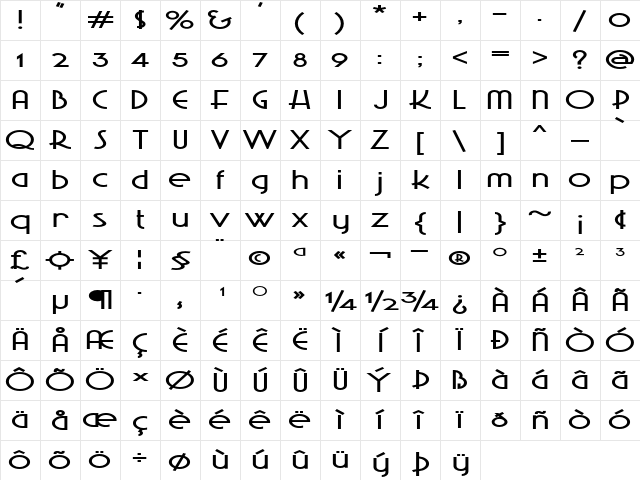
Abalaris Extra-expanded Regular
Style: Extra-expanded Regular
Abalaris Family
Abalaris Extra-expanded Regular
Complete Abalaris Extra-expanded Regular glyph index. Displaying only characters natively supported by Abalaris Extra-expanded Regular font.
Design Context for Abalaris
Abalaris is a composed and adaptable typeface that performs quietly and consistently across a wide range of design contexts.